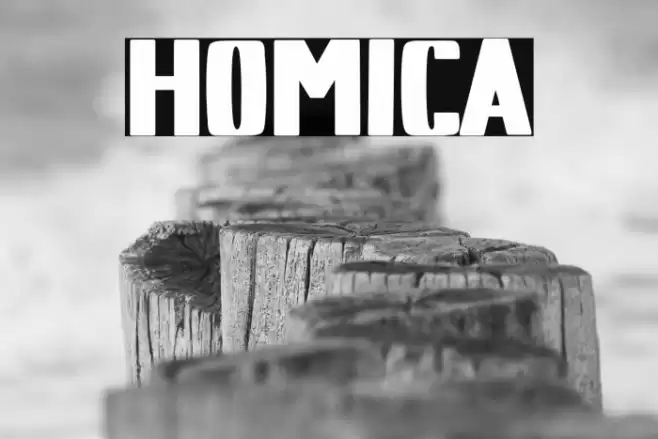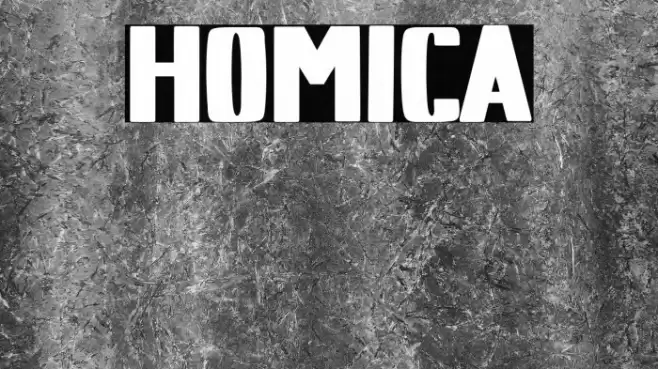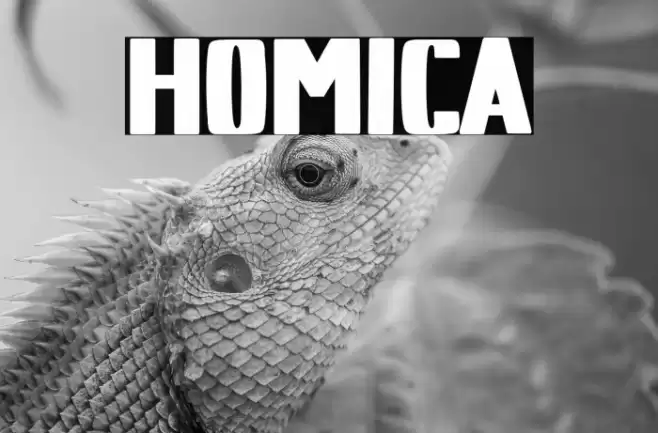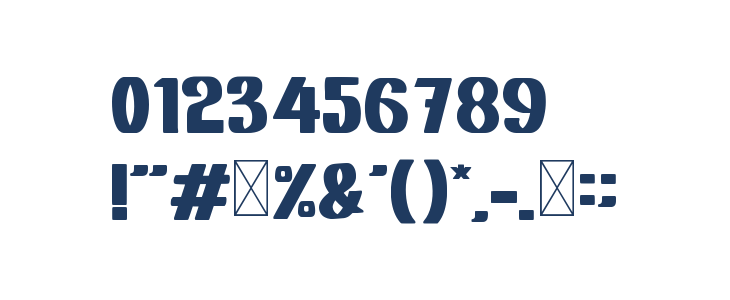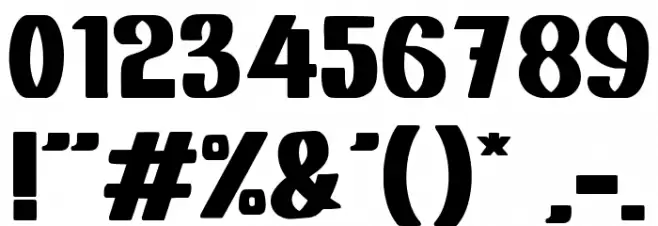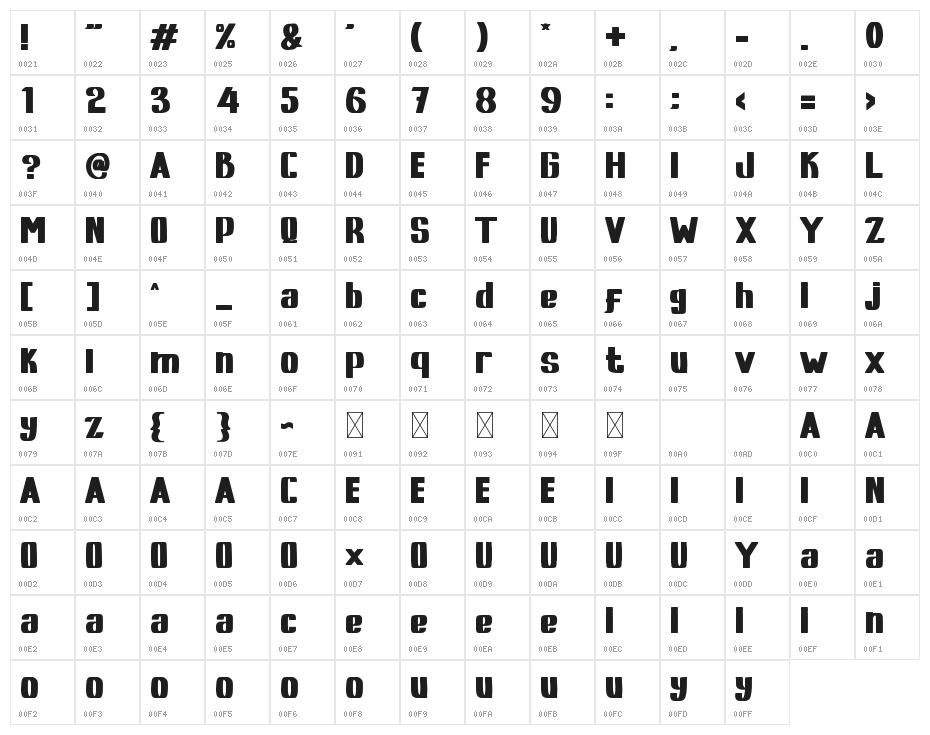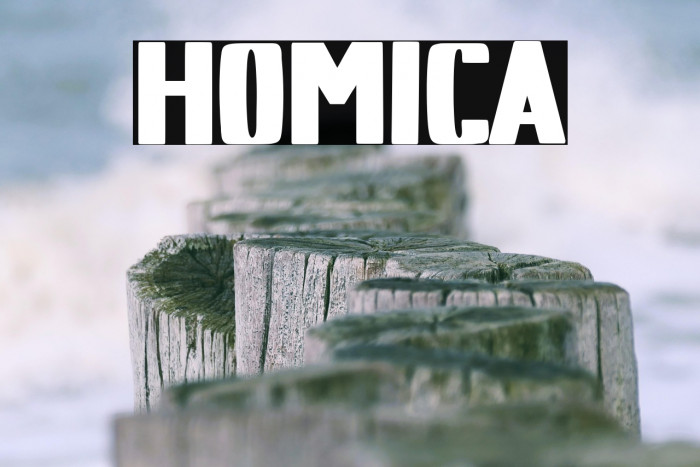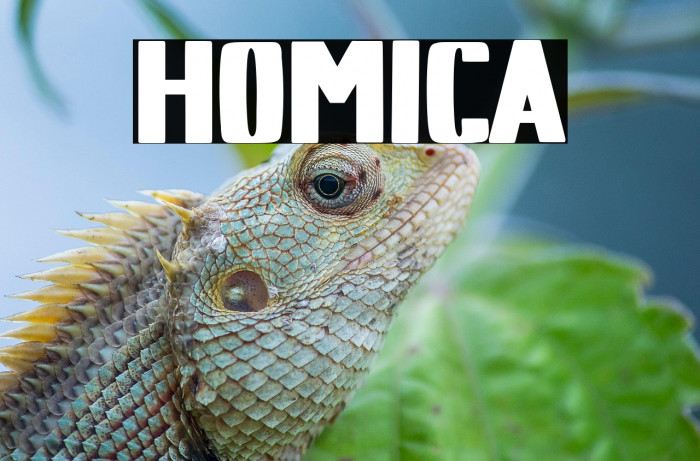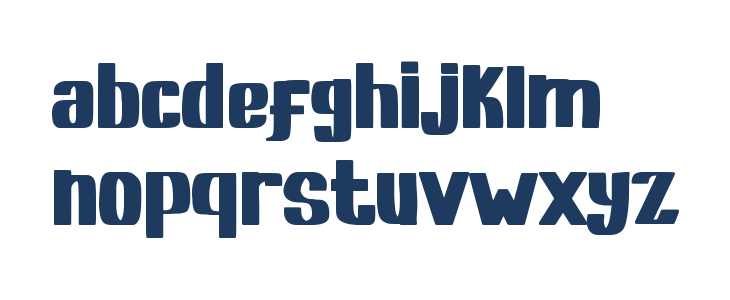
HOMICA Font
HOMICA Description
This font features a bold and robust design with a strong presence. The characters are blocky and have a slightly condensed appearance, giving them a compact yet powerful look. The uppercase letters are uniform in height, with a consistent stroke width that adds to the boldness of the font. The lowercase letters maintain the same thickness, ensuring readability while retaining the font's distinctive style. Numbers are clear and easily distinguishable, matching the overall aesthetic. Special characters are designed with the same boldness, making them stand out effectively. This font is ideal for projects that require a strong visual impact.
A bold, blocky font with a strong, condensed appearance from Uncategorized fonts.
- Proposed Projects: Ideal for posters, headlines, logos, and branding materials that require a bold statement.